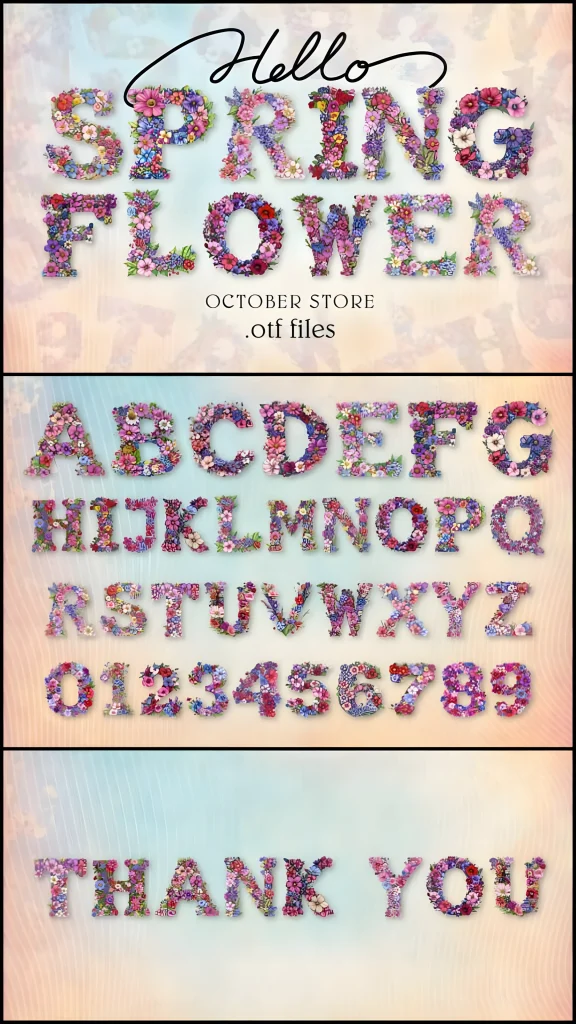
Seasonal fonts often try to look decorative first and practical second. Spring Flower Font takes a different path. From the moment it appears in a layout, it becomes clear that this typeface was designed to celebrate spring, nature, and color — not just visually, but emotionally.
This is a floral color font created to bring the feeling of renewal and freshness into design. Each letter is filled with flowers, turning text into a visual composition rather than simple typography. It feels less like a standard font and more like a set of artistic elements arranged into an alphabet.
First Impression and Overall Style
Spring Flower Font immediately stands out because it is a color font. Every character is decorated with floral elements, making each letter feel alive. According to the font specimen, the set includes 36 characters — 26 letters and 10 numbers, all adorned with blooming flowers that reflect the spirit of spring.
The style is vibrant, expressive, and clearly inspired by nature. This is not a subtle typeface meant to fade into the background. It is designed to be noticed and to add strong visual impact to headlines, titles, and decorative text.
Rather than relying on outlines or textures, Spring Flower Font uses detailed floral compositions to form each character. This gives designs a handcrafted, artistic look.
What Makes This Font Different
The defining feature of Spring Flower Font is that it is an OpenType-SVG color font. This means the colors are built directly into the font itself. There is no need to manually color the letters — the floral artwork is already part of each glyph.
This design choice transforms typography into illustration. Text becomes decoration, which makes the font especially suitable for creative and seasonal projects.
Where Spring Flower Font Works Best
Because of its rich visual style, this font is best used in short text elements rather than long paragraphs.
Decorative Headlines and Titles
Spring Flower Font works beautifully for:
- greeting card titles
- poster headlines
- event names
- decorative quotes
Each letter acts like a visual object, so even a few words can fill a design with color and energy.
Seasonal and Spring-Themed Designs
The font is clearly designed for spring-related projects. Its floral alphabet captures themes like:
- renewal
- nature
- growth
- freshness
This makes it a strong choice for:
- spring event posters
- seasonal promotions
- Easter or spring celebrations
- nature-inspired branding
Creative and Artistic Projects
Because the font turns text into imagery, it works especially well in artistic contexts:
- digital artwork
- website hero sections
- branding visuals
- creative print layouts
Instead of adding illustrations separately, the font itself becomes the decoration.
Readability and Usage Considerations
Spring Flower Font is not designed for body text. The floral details make it best suited for display use only. When used as intended — in headlines and decorative text — it remains visually clear and impactful.
Spacing and size matter. Giving the letters enough room allows the floral details to breathe and remain readable. In crowded layouts, the font can feel heavy, so it performs best in clean compositions.
Pairing it with a simple, neutral font for body text helps maintain balance and readability.
Where This Font Fits Best
Based on its design and features, Spring Flower Font is best suited for:
- spring-themed designs
- floral typography projects
- decorative headlines
Spring Flower Font is more than a typeface — it is a visual statement. By combining typography with floral illustration, it transforms text into decoration and brings a strong sense of season and emotion into design.
For designers looking to create spring visuals that feel vibrant, artistic, and nature-inspired, this font offers a clear and focused solution. Used thoughtfully, it adds personality, color, and life to any project built around renewal and beauty.